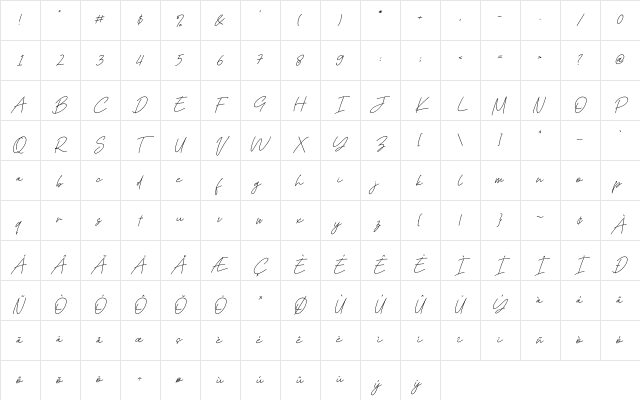
Complete Kadung Tresno Tresno glyph index. Displaying only characters natively supported by Kadung Tresno Tresno font.
Kadung Tresno is a composed and adaptable typeface that performs quietly and consistently across a wide range of design contexts.